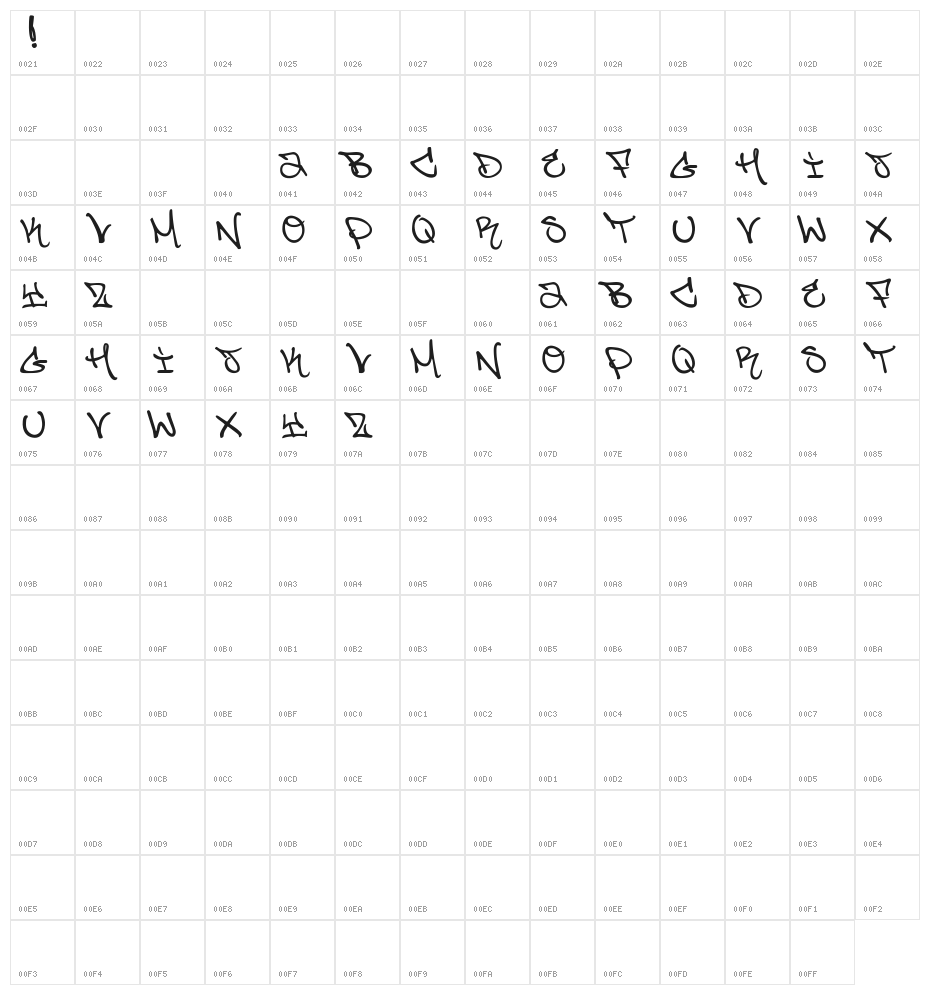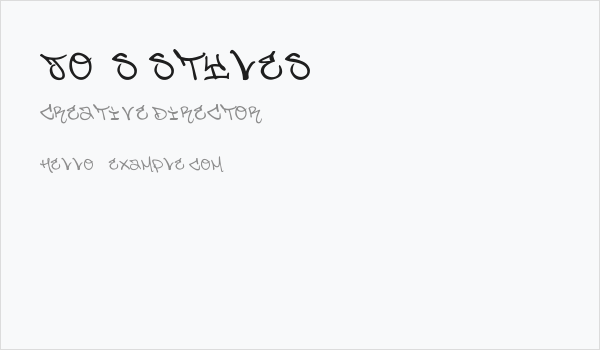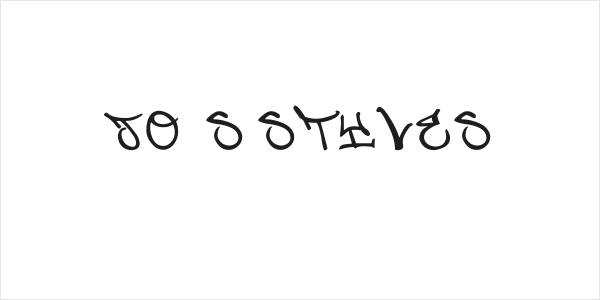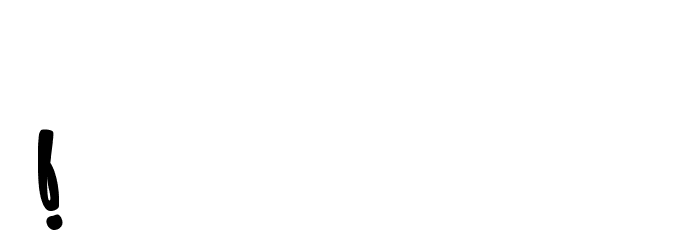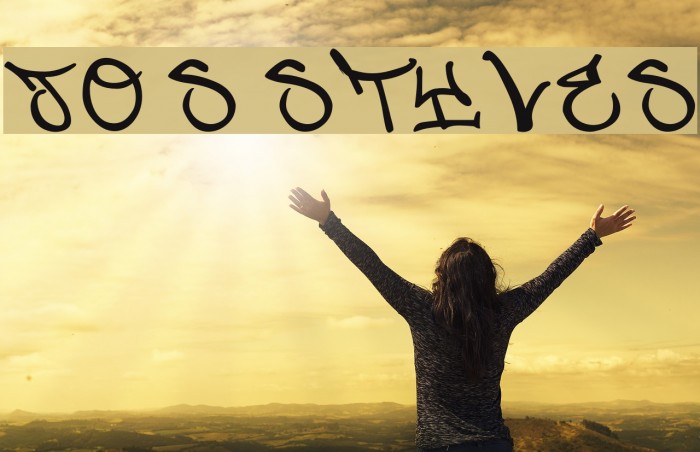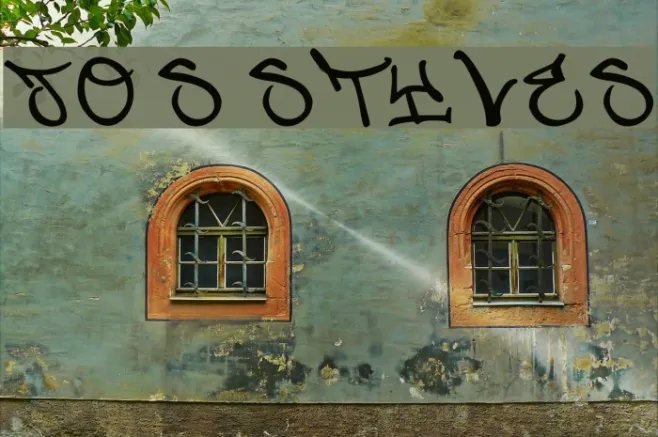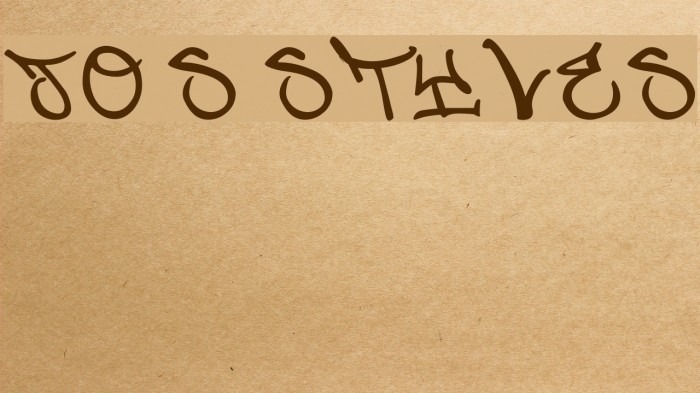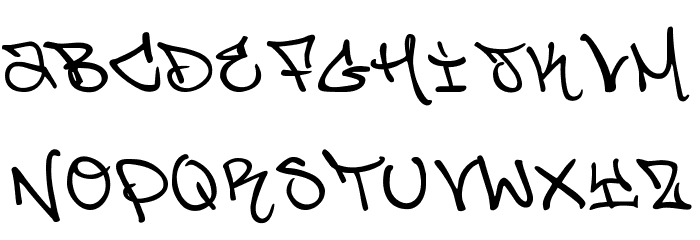
Jo's Styles Font
Jo's Styles Description
This font features a dynamic and expressive style, characterized by its bold, flowing strokes and a handwritten appearance. The letters are crafted with a playful and artistic flair, giving each character a unique and slightly irregular shape. The uppercase letters exhibit a sense of movement and energy, while the lowercase letters maintain a consistent style that complements the overall design. The font's distinctive look is further enhanced by its high contrast between thick and thin strokes, adding to its visual impact. This font is ideal for projects that require a personal touch or a creative, informal vibe.
| Proposed Projects | Great for artistic projects, personal branding, creative posters, and informal invitations. |